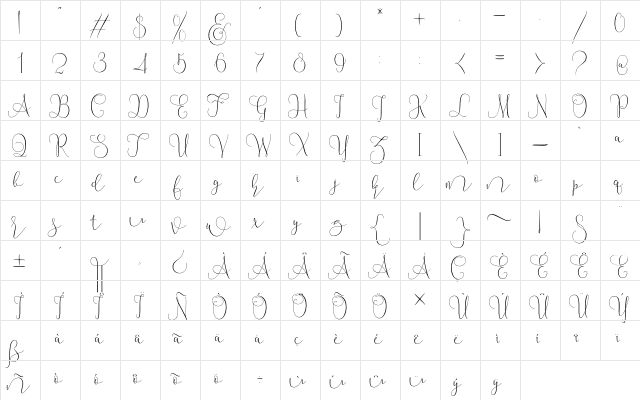
Mallow Script Regular
Design Context for Mallow Script Typeface
Mallow Script brings a calligraphic fluidity to the page — its connecting strokes and expressive curves give it an unmistakably human quality.
Font Pairing: Combine Mallow Script with a simple geometric sans for maximum contrast — the tension between flowing curves and clean structure is a classic typographic pairing.
Pro Tip: Pair Mallow Script with a clean sans-serif for supporting text. The contrast between fluid script and geometric structure creates an elegant typographic hierarchy.